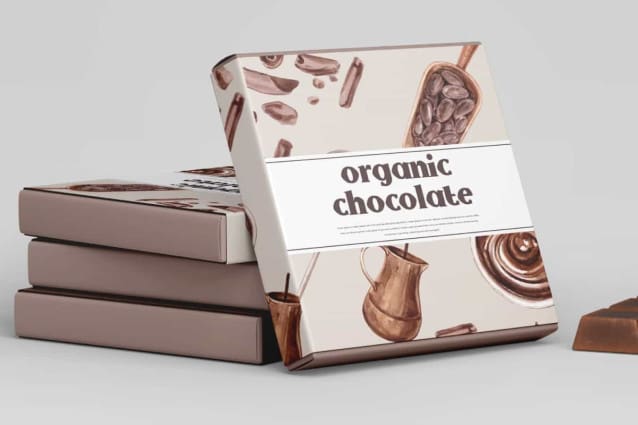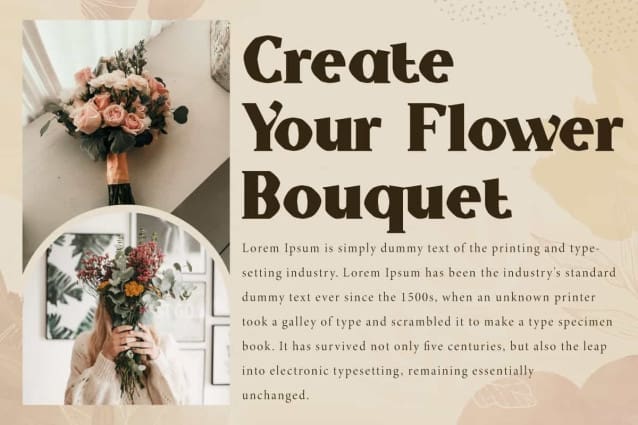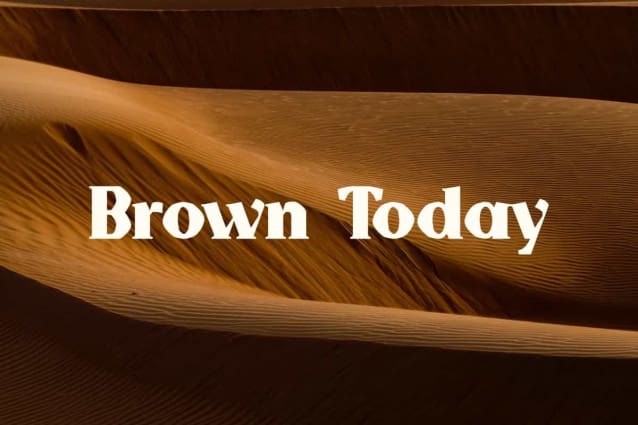
Brown Today Font
Brown Today font is a serif display font with strong bold letters. This typeface will give a tough impression yet still easy-to-read. This font is suitable for brand logos, custom designs, invitations, magazine covers, menus, posters, product packaging, screen printing, signage, social media posts, stationery, stickers, websites, and more!
Brown Today Font includes full set for Uppercase and Lowercase Basic Characters, Numbers, Punctuation and Symbols. this font is not only highly legible but also infuses a contemporary elegance into any project. This font will create the perfect font so that it will be suitable for advertisement, bakery, beauty product, bouquet, cafe, crafts, event or wedding organizer, fashion, photography, restaurant, spa, travel agency, etc.